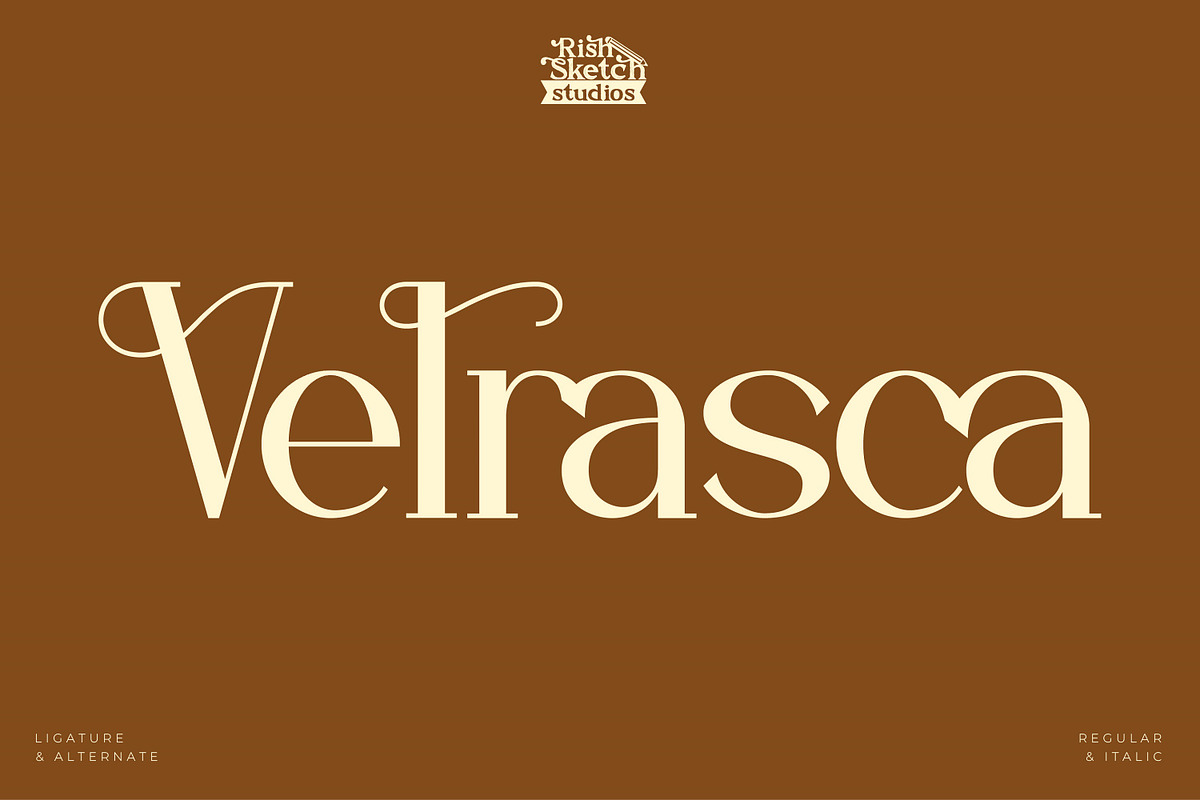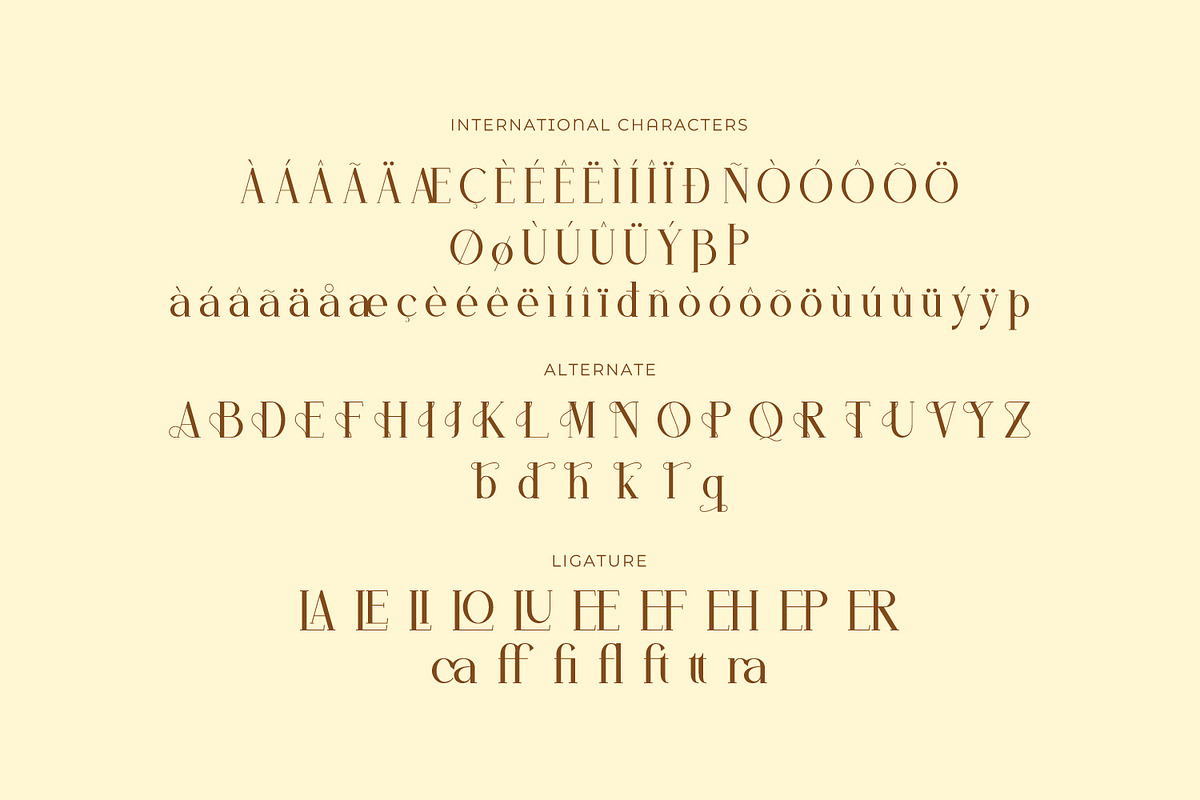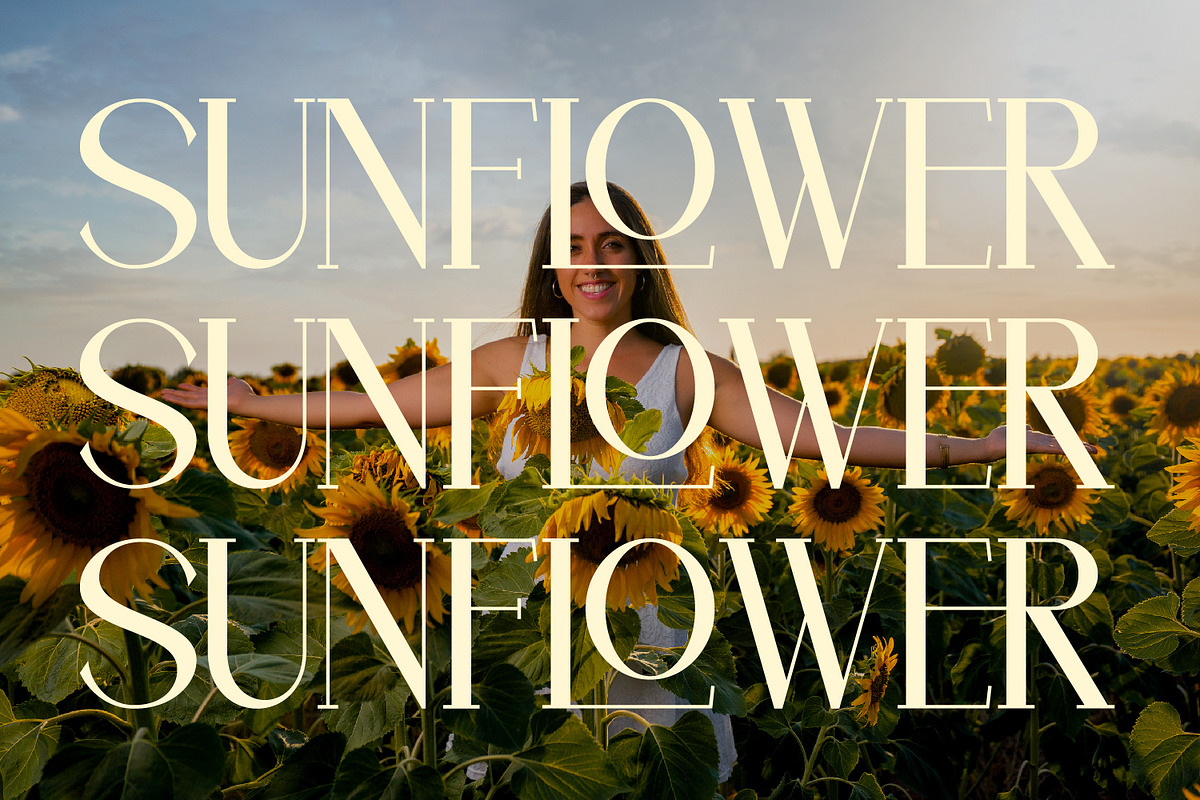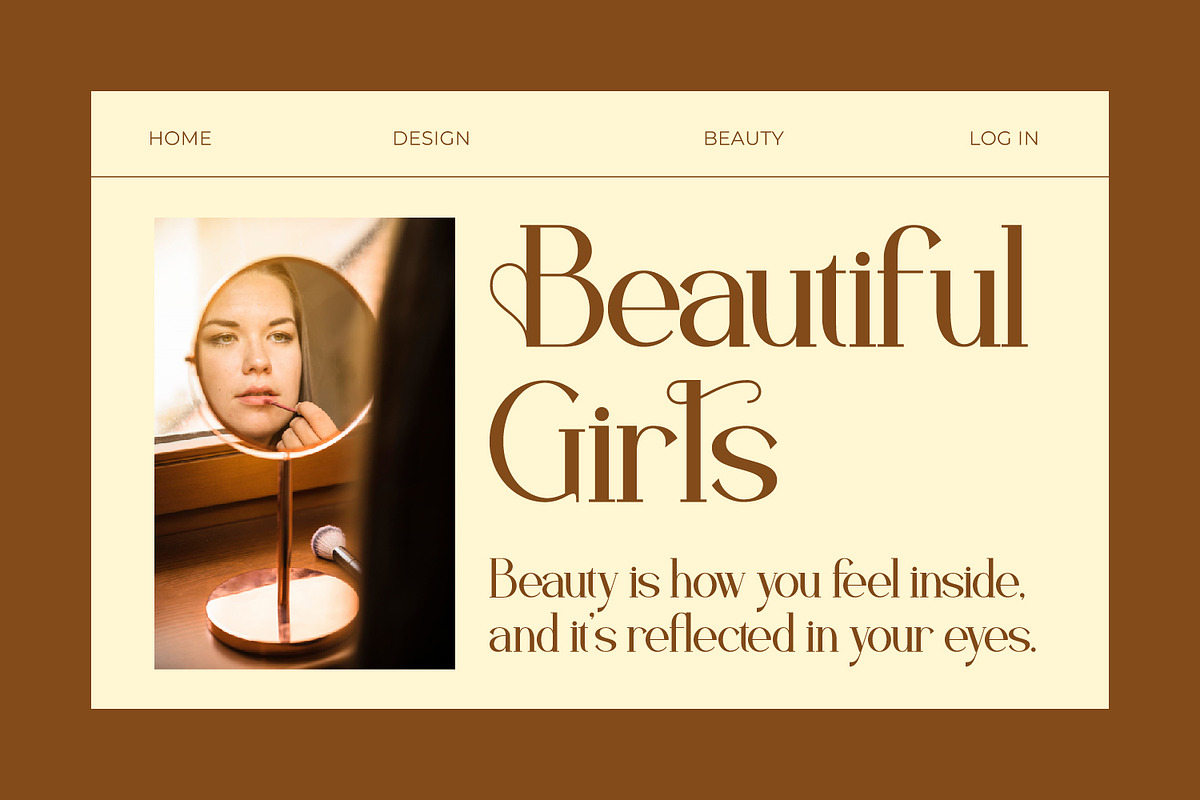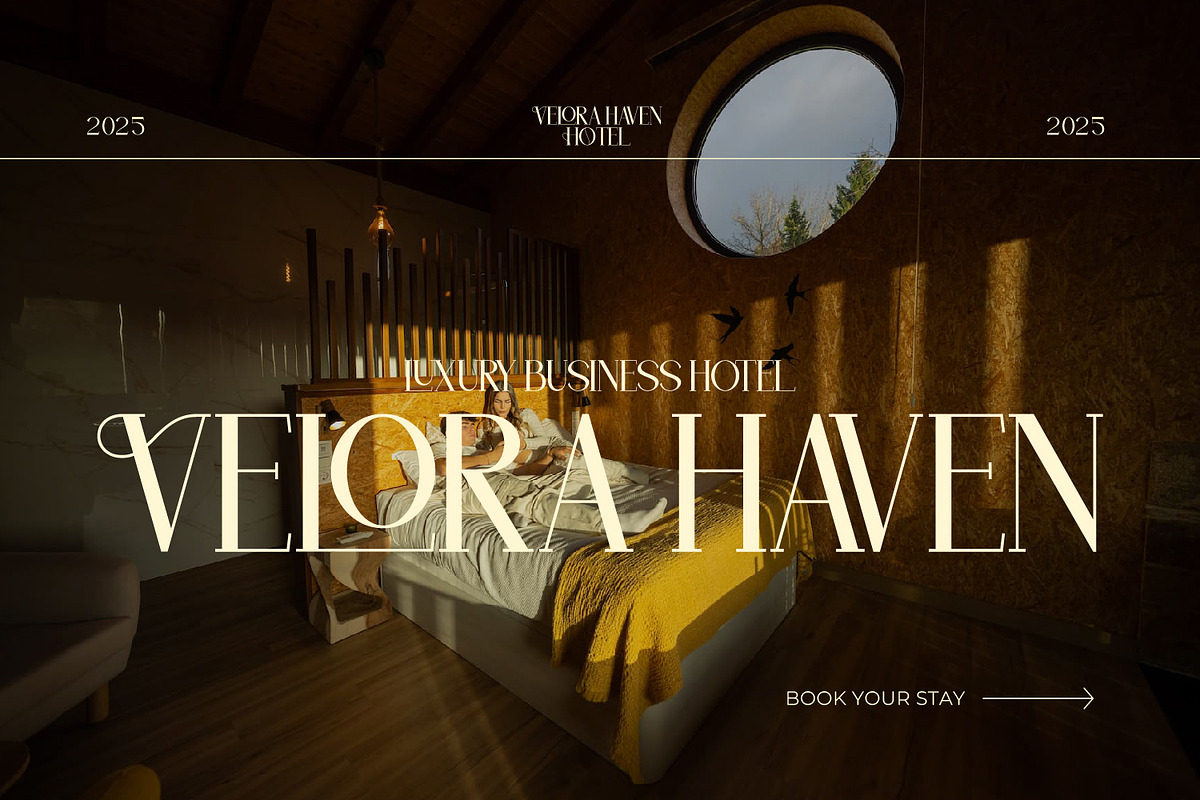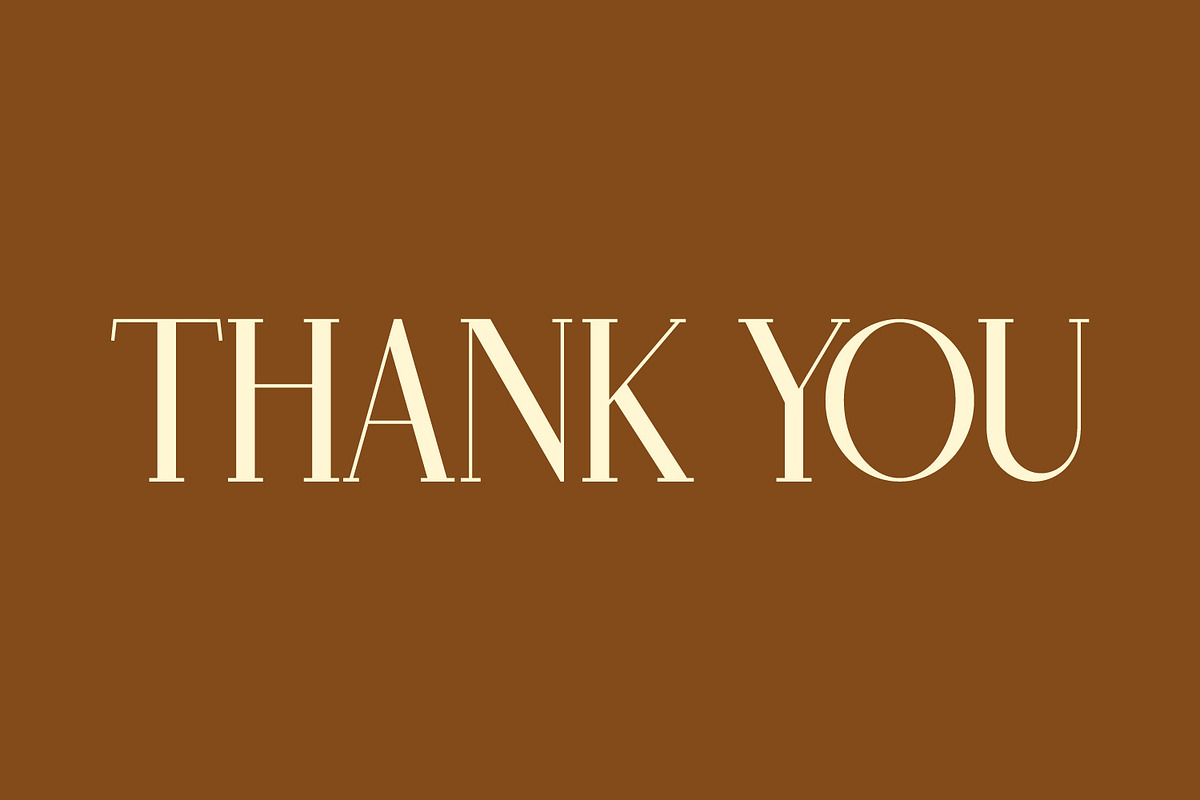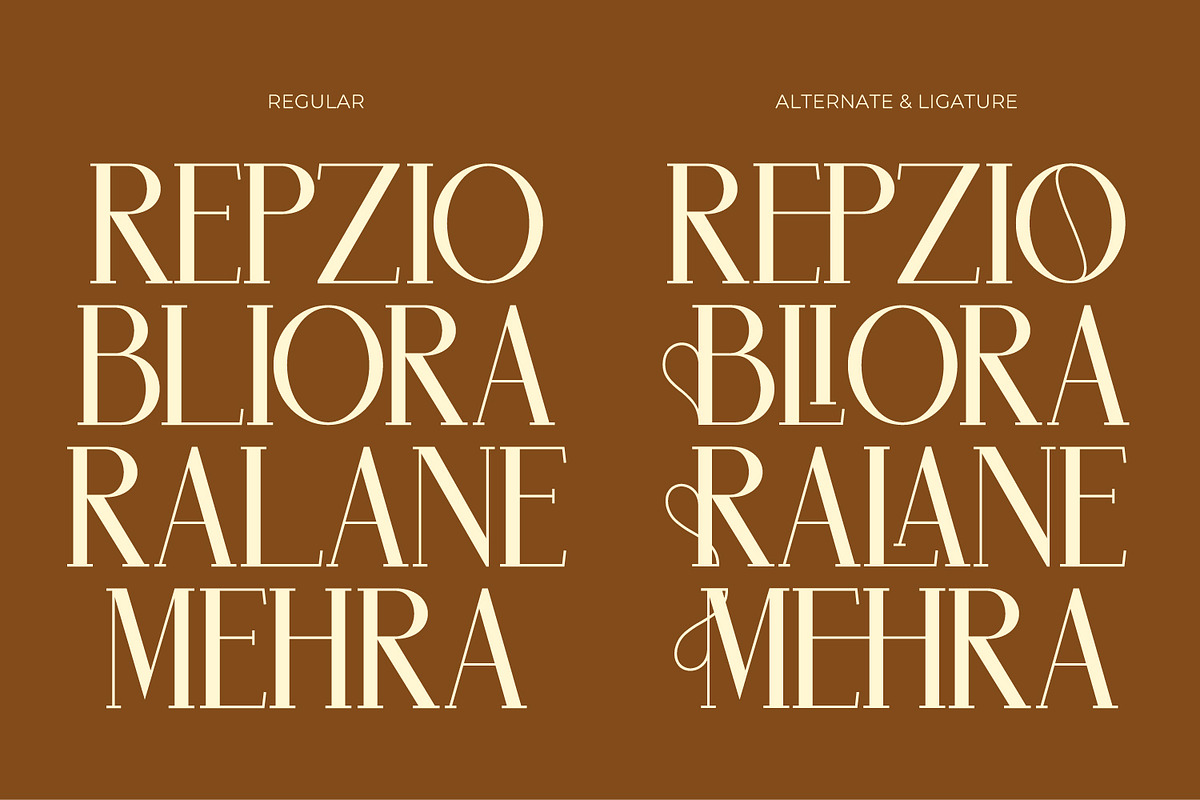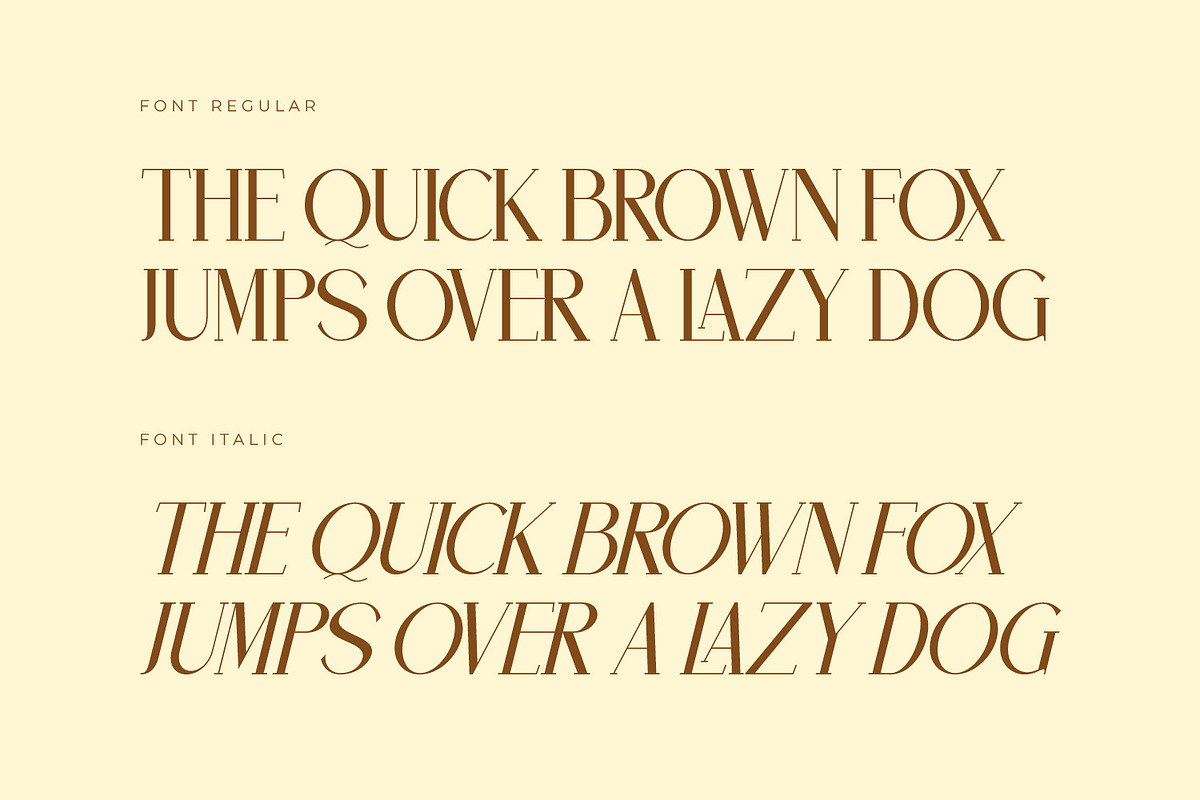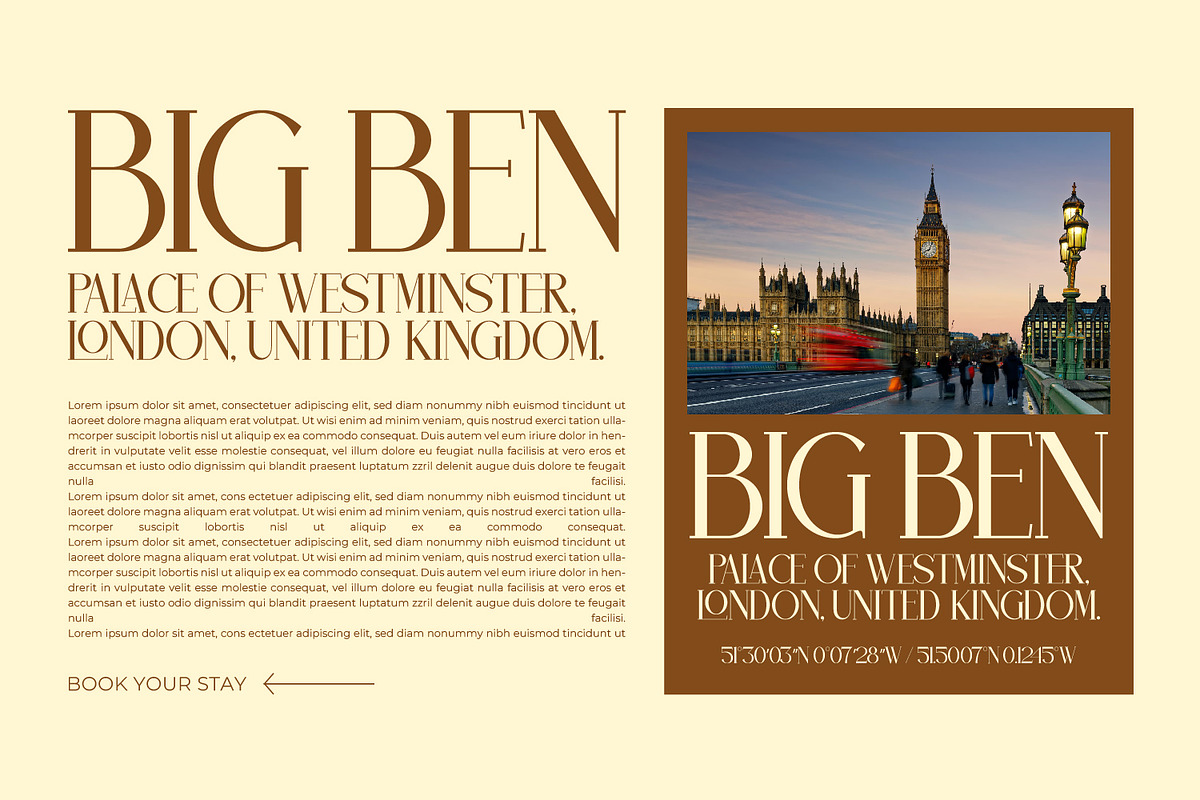
Velrasca - Serif Typeface Font
Velrasca - Serif Typeface Font, from Rishsketch Studios, is a premium Serif Typeface Font, perfect for any project that requires a distinctive, and premium feel.
Ligature, Alternate, & Multilingual